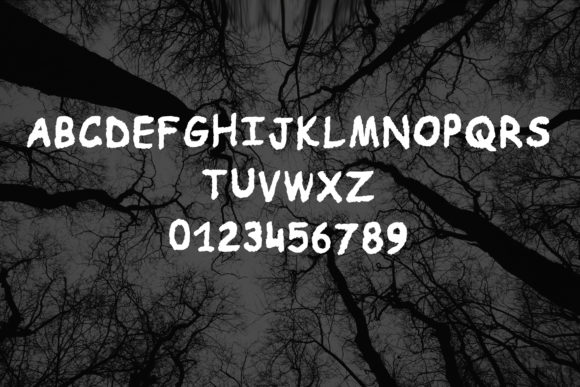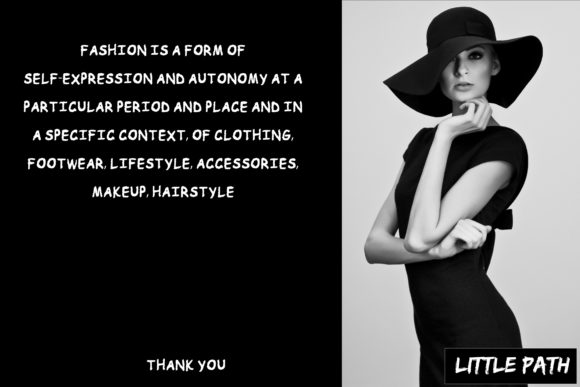
Introduction to Little Path Font
As a designer, there’s nothing quite like the thrill of discovering a new design resource that sparks your creativity. For me, it was a late-night scroll through a font website that led me to the enchanting Little Path Font. Its eerie, hand-drawn feel instantly captured my attention, and I knew I had to learn more.
Little Path Font is a high-quality display font that exudes an air of mystery and sophistication. Its transparent background makes it perfect for designers looking to add an extra layer of depth to their creative projects. Whether you’re working on a horror movie poster, a Halloween craft, or a t-shirt design, this font is sure to elevate your design game.
Key Features of Little Path Font
- High-quality design: Little Path Font offers a unique and elegant design that is perfect for creative projects.
- Transparent background: The font’s transparent background makes it easy to use on any background or design resource.
- Unique characteristics: The Little Path Font features a distinctive and creative style, making it perfect for adding a personal touch to any design project.
Honest Review: Little Path Font
As a designer, I’m always on the lookout for high-quality design resources that can elevate my creative projects. The Little Path Font is one such resource that caught my attention, and I’m excited to share my thoughts on it.
Here are the things that work well for me:
- ✨ The font is beautifully crafted, with a transparent background that makes it perfect for overlaying on images or other design elements.
- ✨ The font is highly customizable, allowing me to adjust the size, color, and style to fit my design needs.
However, I do have a few limitations to mention:
- ⚠️ The font is not suitable for large-scale text, as it can become difficult to read at larger sizes.
- ⚠️ The font is not available in as many languages as I would like, which can limit its usability in certain projects.
Overall, I’m impressed with the Little Path Font and would definitely recommend it for designers working on creative projects. Its high quality and customizability make it a valuable addition to any design resource library. Just be aware of its limitations, and use it judiciously to get the most out of it.
The Little Path Font is a high-quality design resource ideal for creative projects that require a unique and stylish touch. This free download is perfect for designers and non-designers alike, offering a transparent background that can be easily integrated into various design platforms.
Tips for Getting the Most Out of Little Path Font
For optimal results, use the Little Path Font in conjunction with other high-quality design resources. Experiment with different font sizes, colors, and styles to create a unique and eye-catching design.
The Little Path Font is suitable for a variety of design projects, including:
- Infographics and data visualizations
- Business cards and resumes
- Marketing materials and brochures